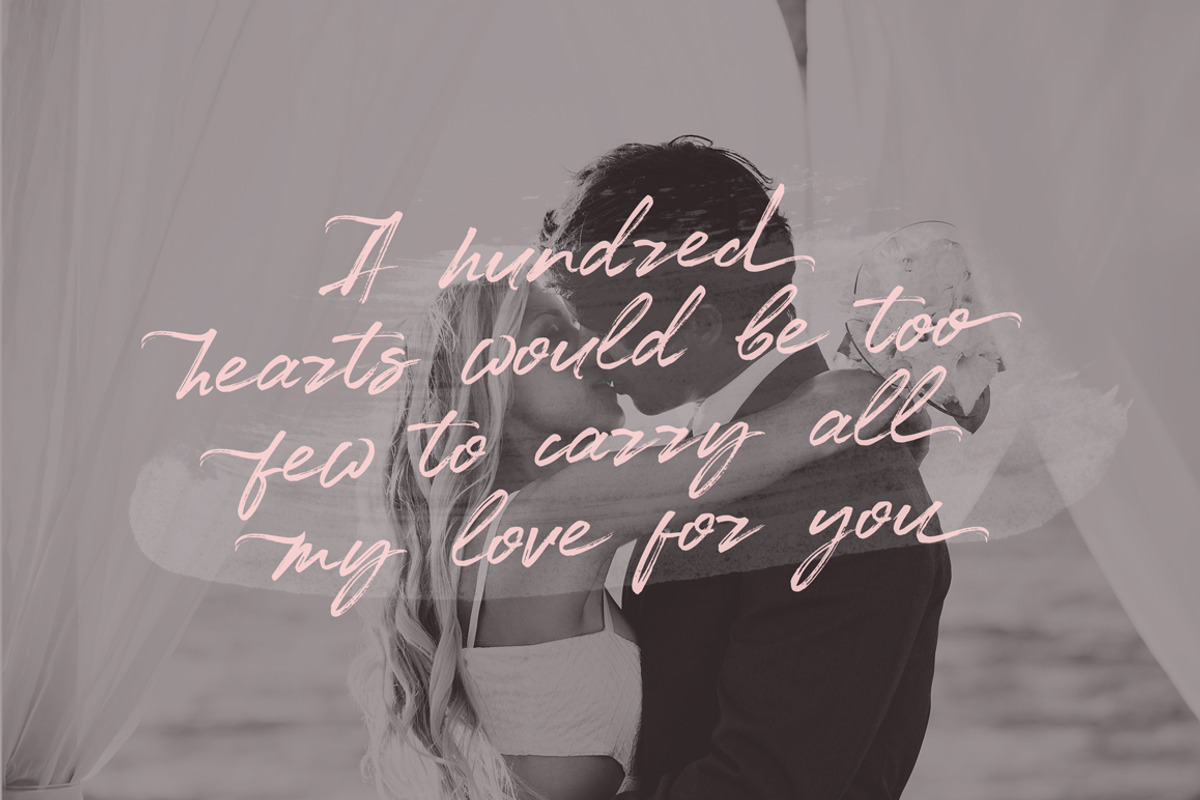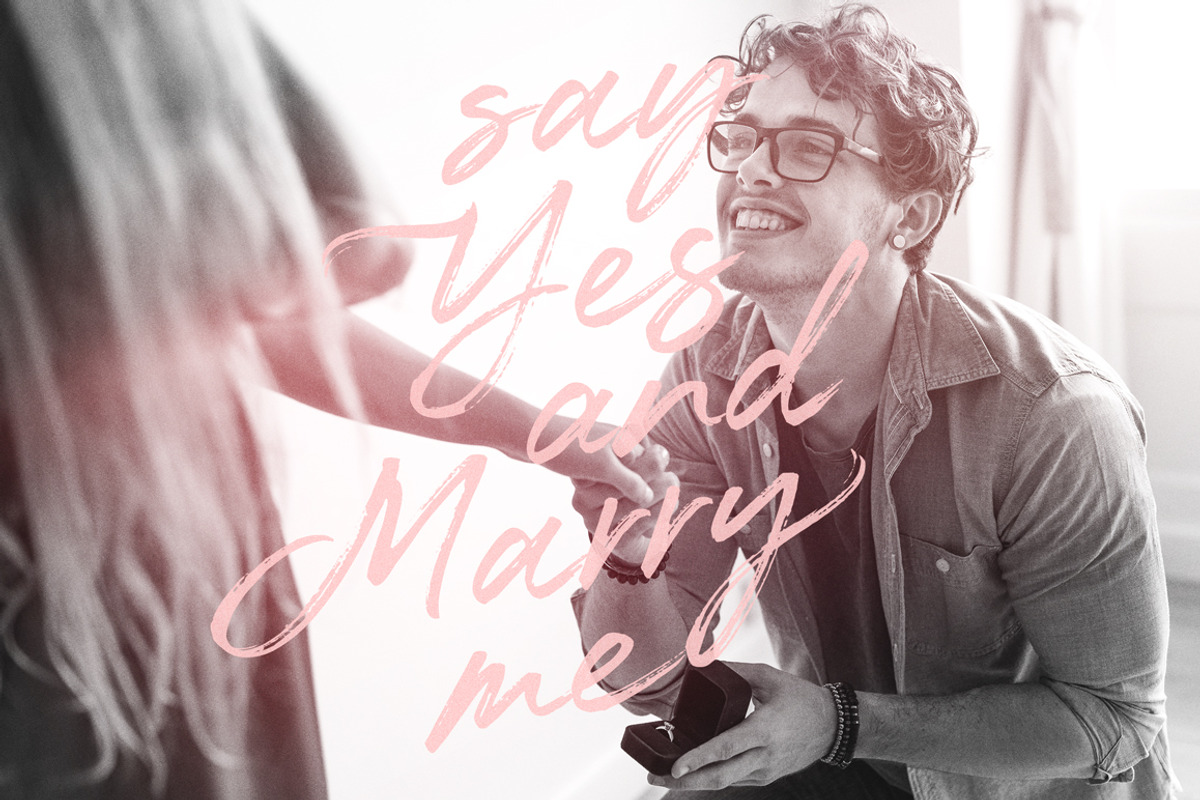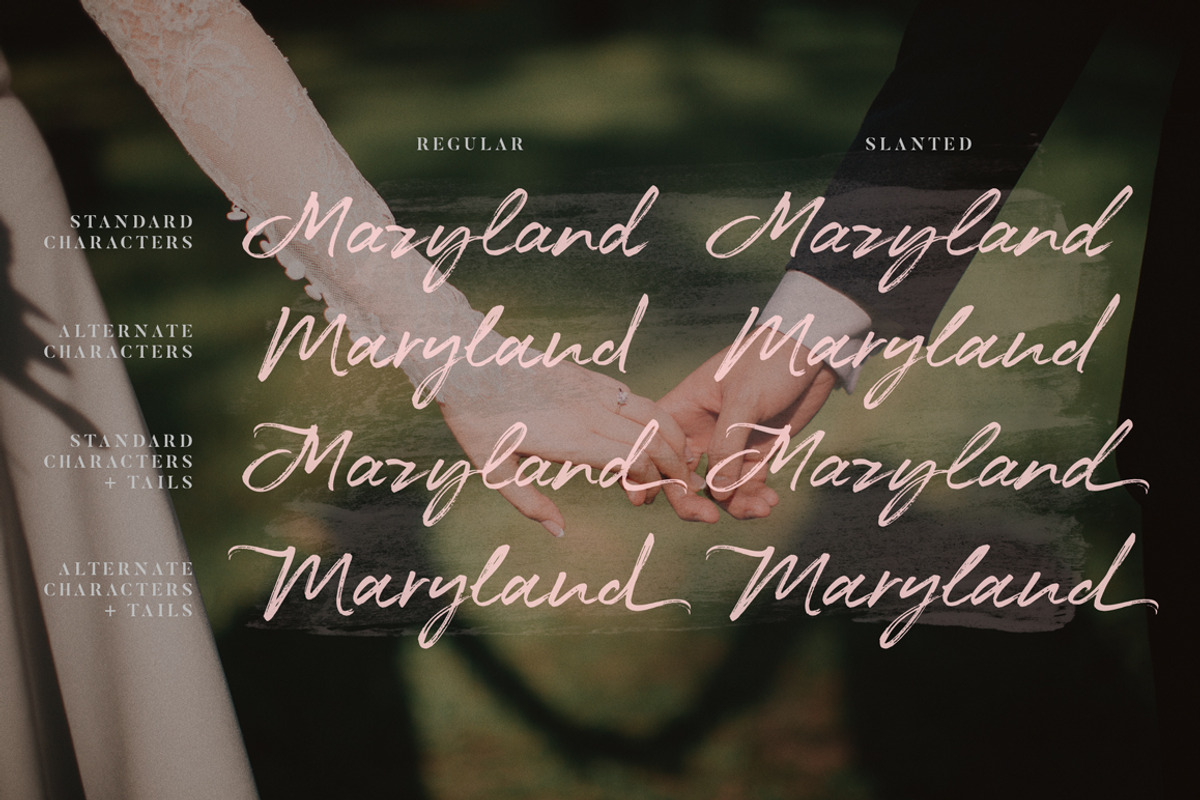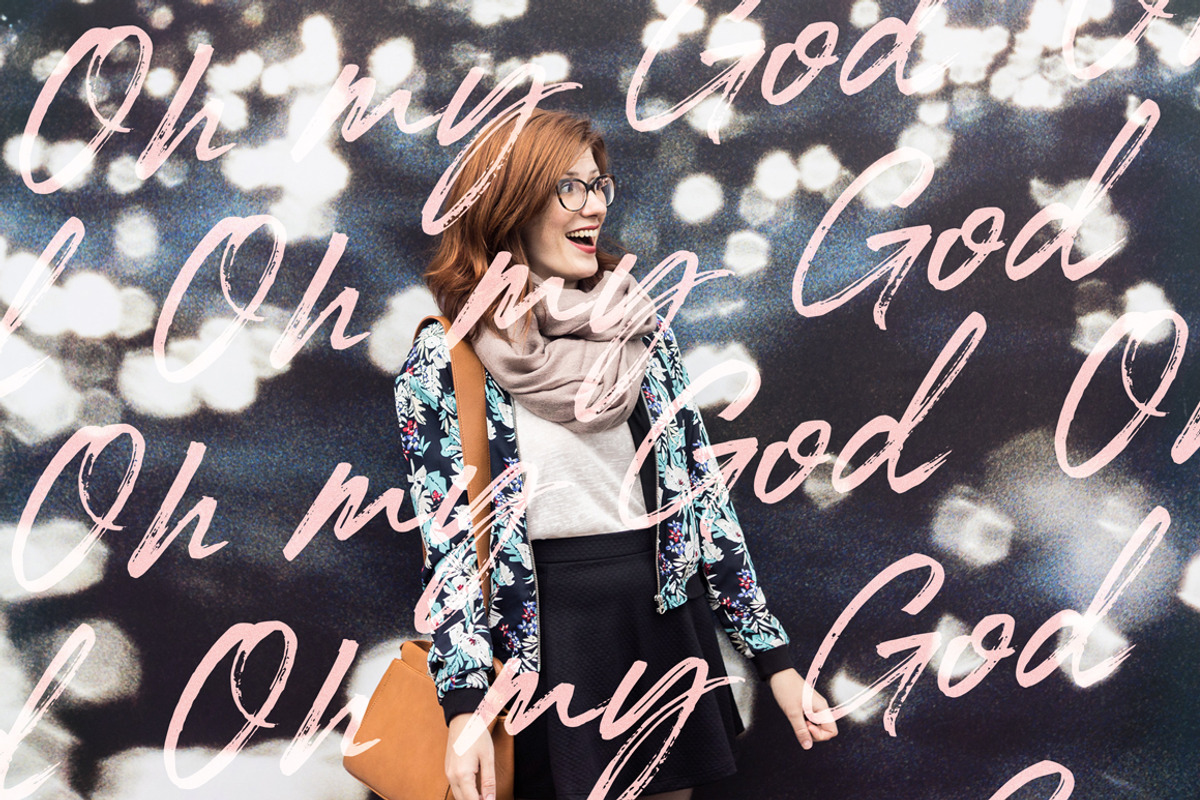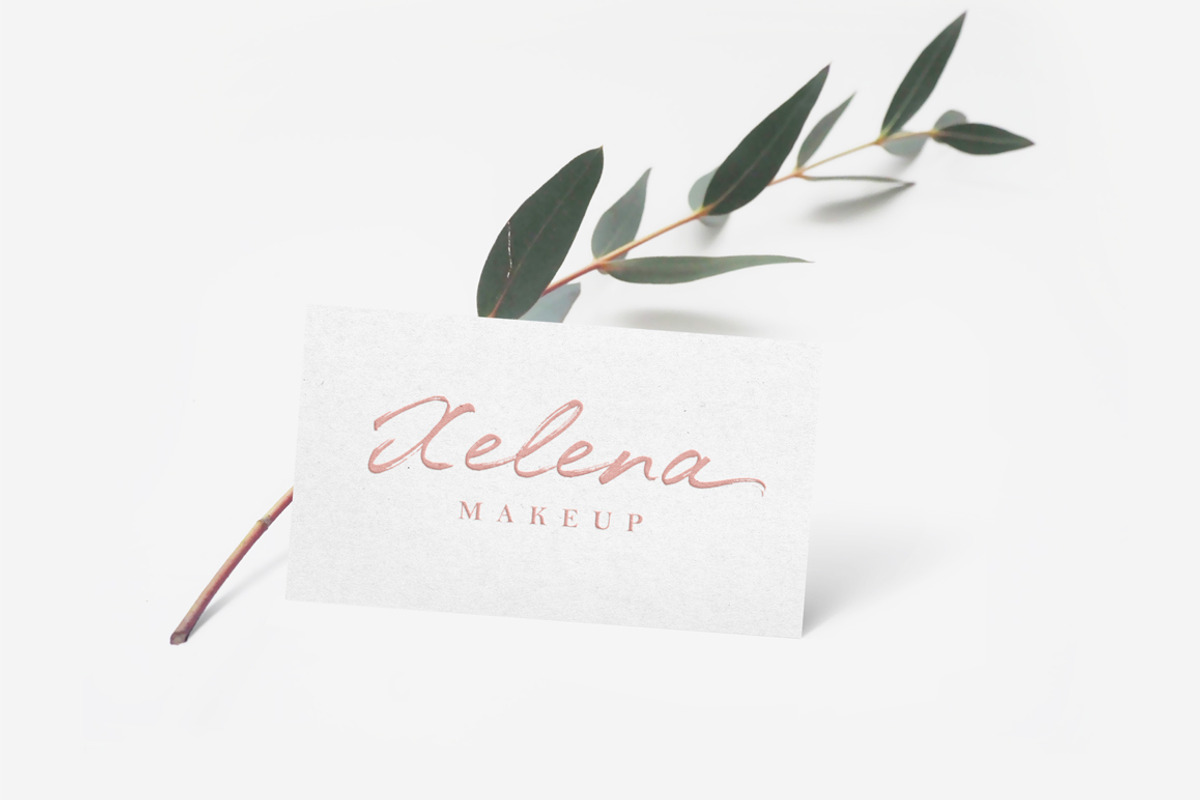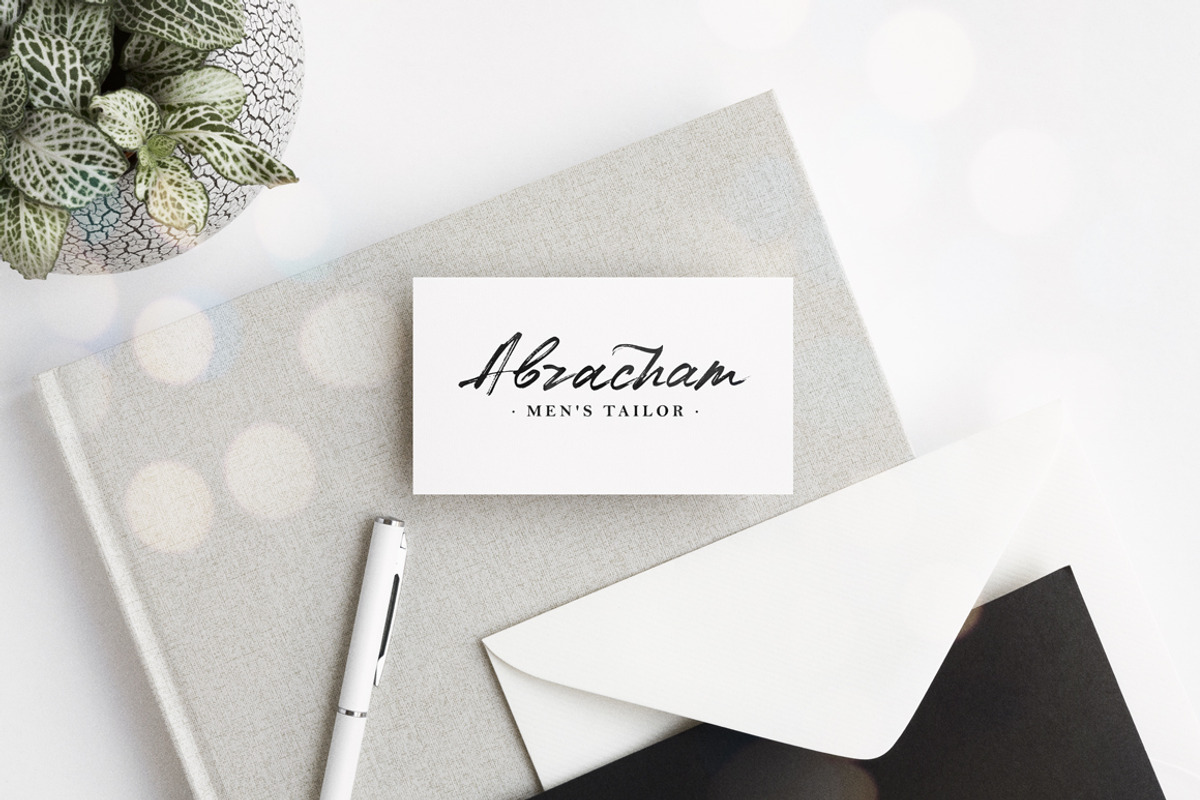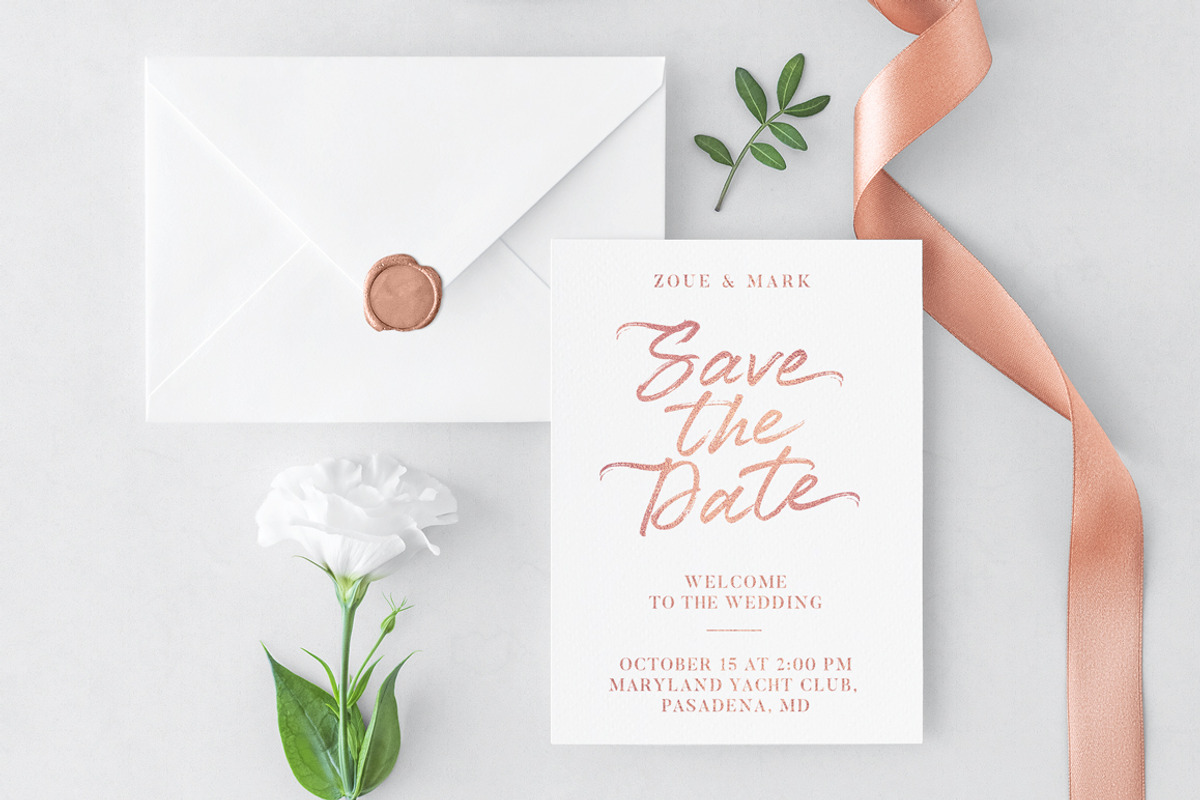
Maryland Wedding Font
Maryland is a perfect font, when you need to find those special words. Crafted with love, in our cozy home studio it's authentically hand lettered, elegant script. The pack includes alternates for lowercase and uppercase characters as well as additional characters with playful tails, which add a unique charm to your special design. Maryland created to work perfectly in multiple designs like wedding invitations, website logos, social media posts, posters, cards and many many more.
Maryland Wedding Font by Ayya Studio fits naturally into Branding, posters, packaging, typography.